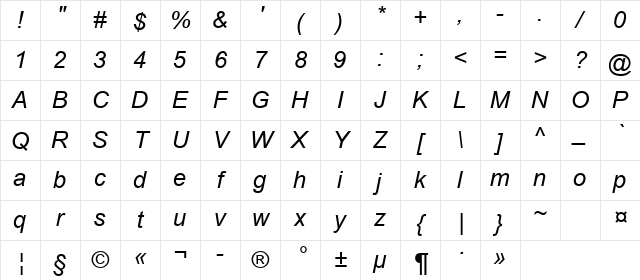
Arial Cyr Italic
Complete Arial Cyr Italic glyph index. Displaying only characters natively supported by Arial Cyr Italic font.
Design Context for Arial Cyr
Arial Cyr is a composed and adaptable typeface that performs quietly and consistently across a wide range of design contexts. The slanted form adds forward momentum and visual energy.
Pro Tip: Use Arial Cyr for emphasis, pull quotes, and subheadings where its slanted energy can add rhythm to the layout.